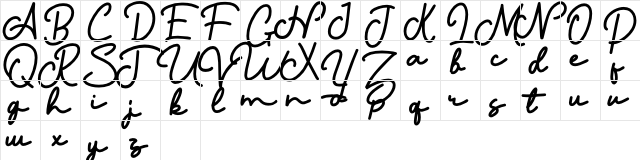
andalucia Regular
Design Context for andalucia Typeface
andalucia is a composed and adaptable typeface that performs quietly and consistently across a wide range of design contexts.